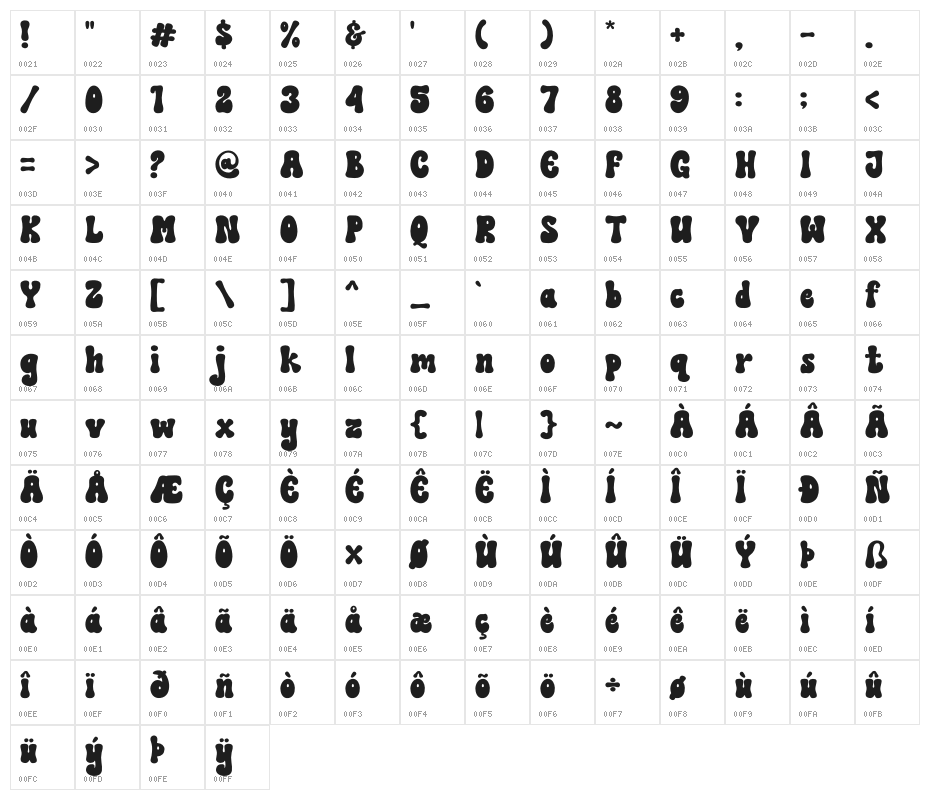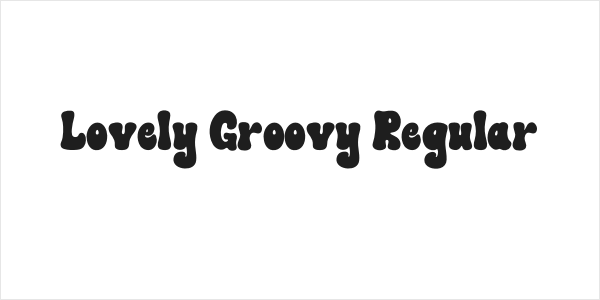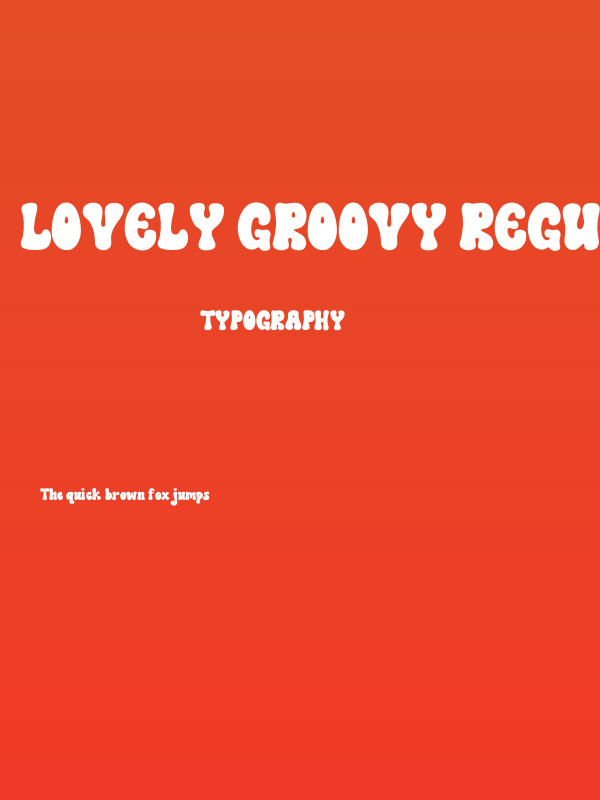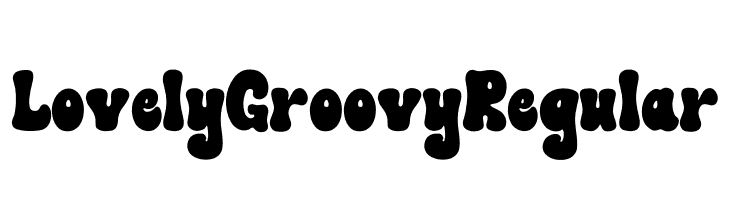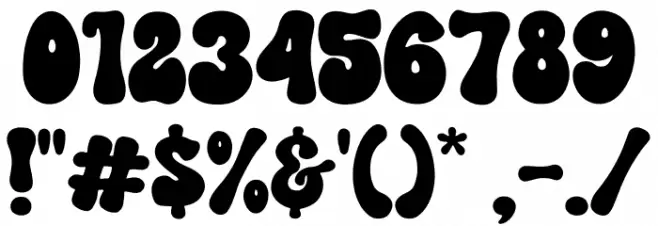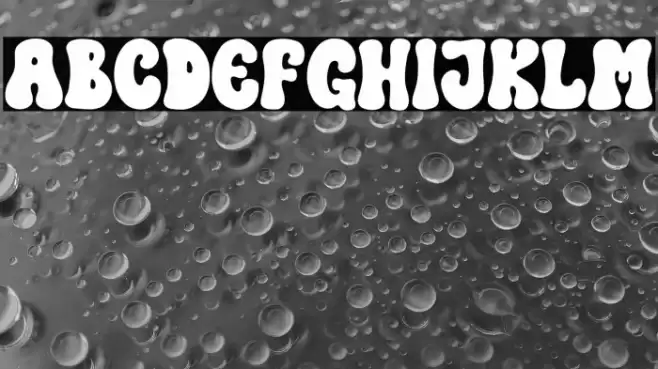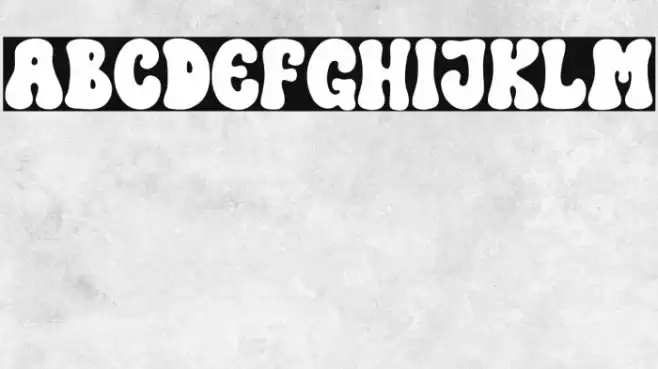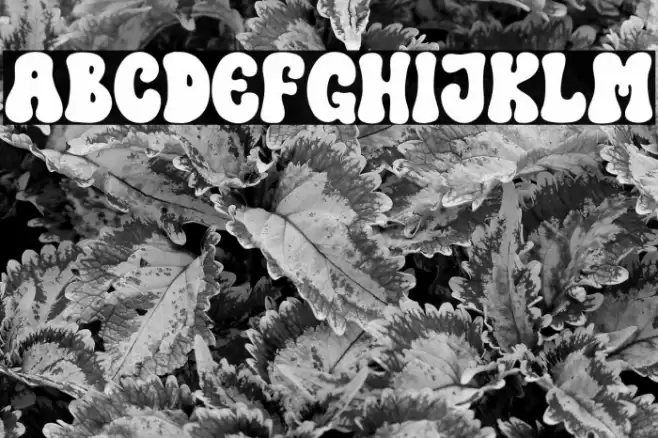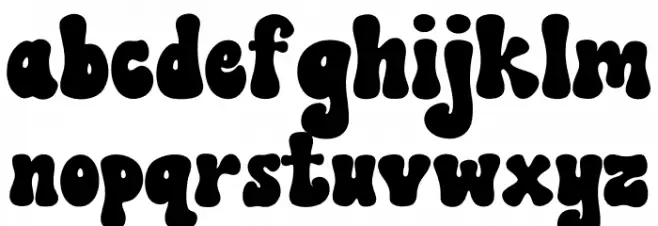
Lovely Groovy Regular Font
This font exhibits a playful and bold style with its thick, rounded characters that convey a sense of fun and creativity. The letters are heavily weighted, giving them a strong presence, while the rounded edges soften the overall look, making it approachable and friendly. The design is reminiscent of retro or psychedelic aesthetics, with a groovy, flowing appearance that suggests movement and energy. The characters are closely spaced, enhancing the compact and cohesive feel of the text. This font's unique style makes it stand out, ideal for capturing attention and conveying a lively, upbeat message.
| Overall Style | Retro, Playful, Groovy |
| Proposed Projects | Ideal for posters, music album covers, children's books, party invitations, and branding for creative industries. |